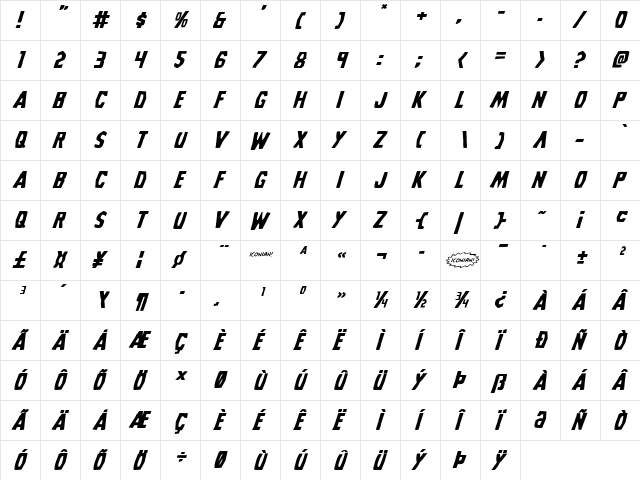
Grim Ghost Expanded Italic Expanded Italic
Design Context for Grim Ghost Expanded Italic Typeface
Grim Ghost Expanded Italic is a composed and adaptable typeface that performs quietly and consistently across a wide range of design contexts. Its italic angle brings a sense of urgency and motion to the letterforms.
Pro Tip: Use Grim Ghost Expanded Italic for emphasis, pull quotes, and subheadings where its slanted energy can add rhythm to the layout.